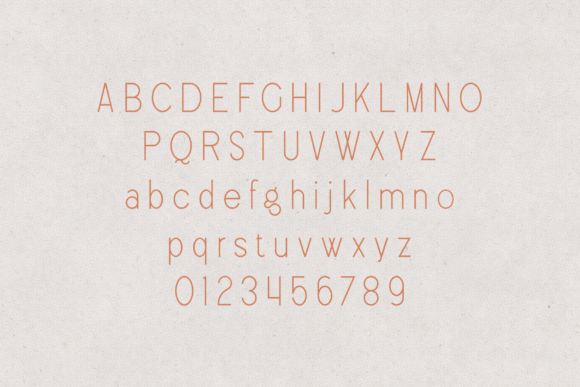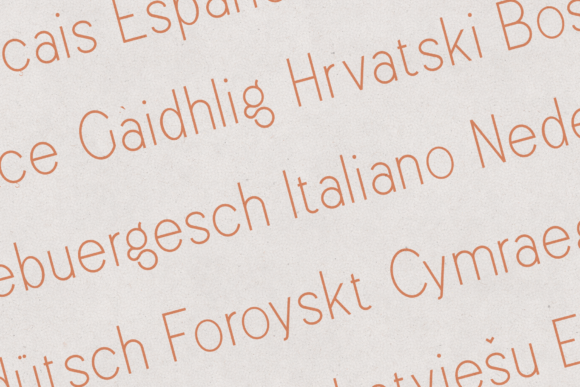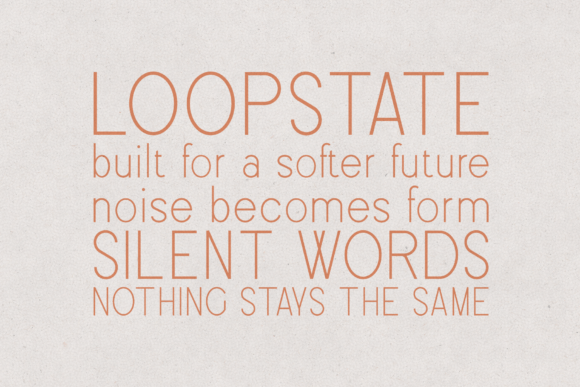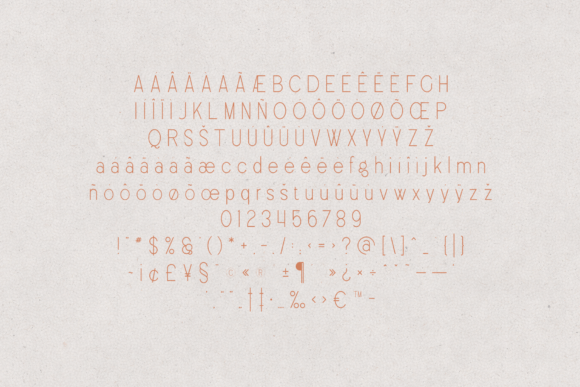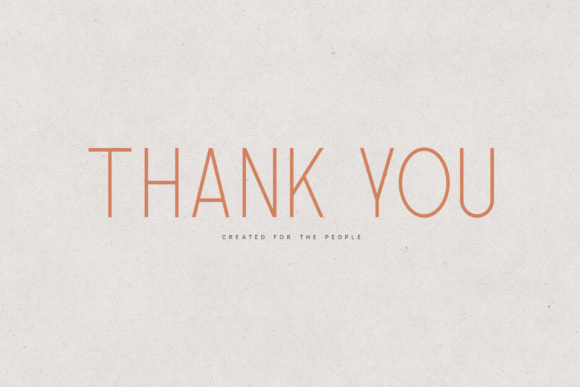
Introducing Enchanted Love Font: The Epitome of Modern Elegance
In the realm of typography, few fonts manage to strike a balance between modern sophistication and emotional resonance. Enchanted Love Font, a refined modern sans serif, is one such exceptional typeface that embodies softness, balance, and quiet sophistication. Designed with a keen eye for detail, Enchanted Love seamlessly merges clean geometric construction with subtle humanist curves, yielding a font that exudes warmth, elegance, and contemporaneity.
The Design Philosophy Behind Enchanted Love
Enchanted Love’s design philosophy revolves around the concept of minimalism with emotion—a clean structure infused with poetic presence. This approach caters to designers who seek a typeface that not only presents a sleek, modern appearance but also conveys a deeper emotional connection. The font’s creator aimed to craft a typeface that would feel at home in various high-end applications, from editorial layouts and fashion branding to luxury packaging and wedding invitations.
Key Features of Enchanted Love Font
- Clean Geometric Construction: The backbone of Enchanted Love’s design is its clean, geometric structure. This aspect ensures that the font maintains a level of sophistication and modernity, making it perfect for designs that demand a sleek look.
- Subtle Humanist Curves: What sets Enchanted Love apart is the subtle incorporation of humanist curves. These curves introduce a warmth and softness to the font, preventing it from feeling too rigid or cold. This blend of geometric precision and humanist touch gives Enchanted Love its unique character.
- Versatility: Enchanted Love’s versatility is one of its standout features. It is designed to excel in a wide range of applications, including editorial layouts, fashion branding, luxury packaging, wedding invitations, social media graphics, modern logo design, and lifestyle and beauty brands.
Ideal Applications for Enchanted Love Font
Given its elegant and modern characteristics, Enchanted Love Font finds its application in various design projects. Here are some areas where Enchanted Love truly shines:
- Editorial Layouts: For magazines, journals, and editorial content, Enchanted Love offers a sophisticated and readable solution.
- Fashion Branding: Fashion brands looking for a typeface that communicates luxury, elegance, and modernity will find Enchanted Love to be an excellent choice.
- Luxury Packaging: The font’s refined appearance makes it suitable for luxury product packaging, adding a touch of elegance to the product’s presentation.
- Wedding Invitations: For wedding invitations and related stationery, Enchanted Love provides a romantic yet sophisticated look.
- Social Media Graphics: Creating social media content that stands out? Enchanted Love can help elevate your graphics with its modern and clean aesthetic.
- Modern Logo Design: For brands looking to craft a modern, elegant logo, Enchanted Love offers a versatile solution.
- Lifestyle and Beauty Brands: The font’s warm and elegant feel makes it particularly suited for lifestyle and beauty brands aiming to communicate a sense of luxury and approachability.
Why Designers and Crafters Love Enchanted Love Font
Designers and crafters gravitate towards Enchanted Love Font for several reasons:
- Unique Blend of Modernity and Warmth: The font’s ability to blend modern geometric precision with warm, humanist elements makes it a rare find.
- Versatility Across Projects: Its wide range of applications means that Enchanted Love can be a go-to font for various projects, making it a valuable addition to any designer’s toolkit.
- Ease of Readability: Despite its elegant and refined appearance, Enchanted Love maintains a high level of readability, making it suitable for both digital and print applications.
In conclusion, Enchanted Love Font stands out as a premier typeface for designers and crafters seeking to imbue their projects with a sense of modern elegance and emotional depth. Its unique blend of geometric construction and humanist curves, combined with its versatility across various applications, makes it an invaluable asset for anyone looking to elevate their design work.